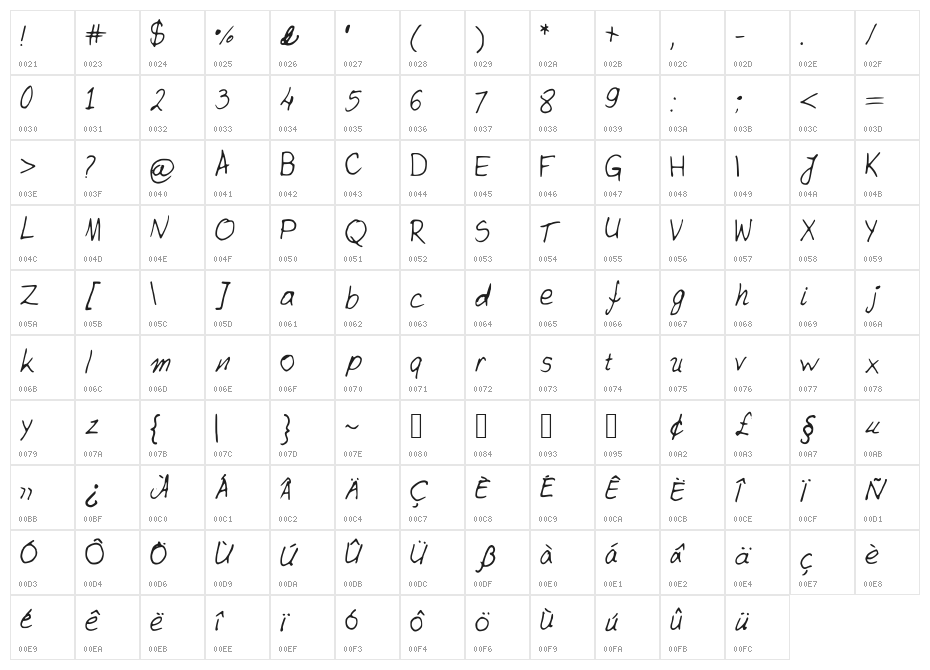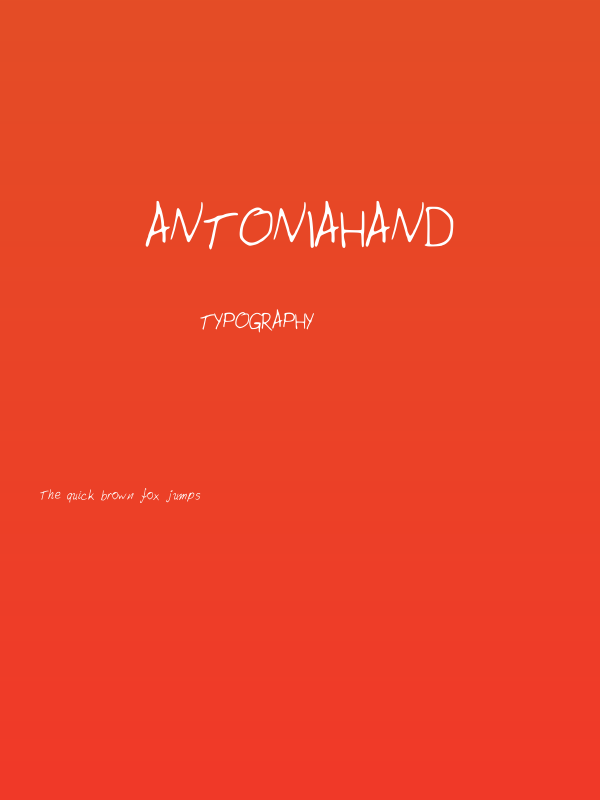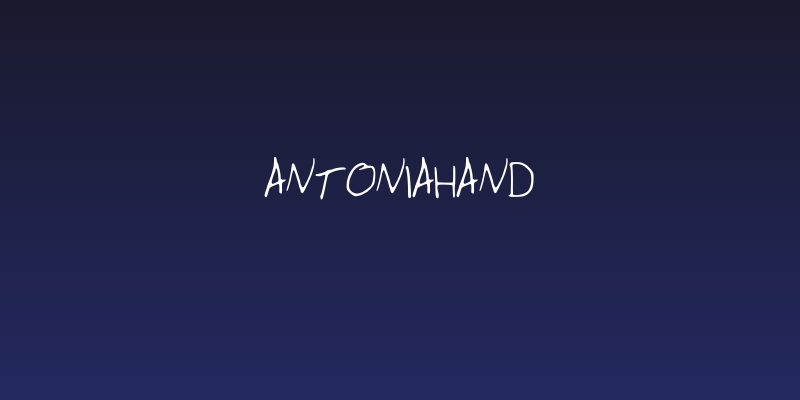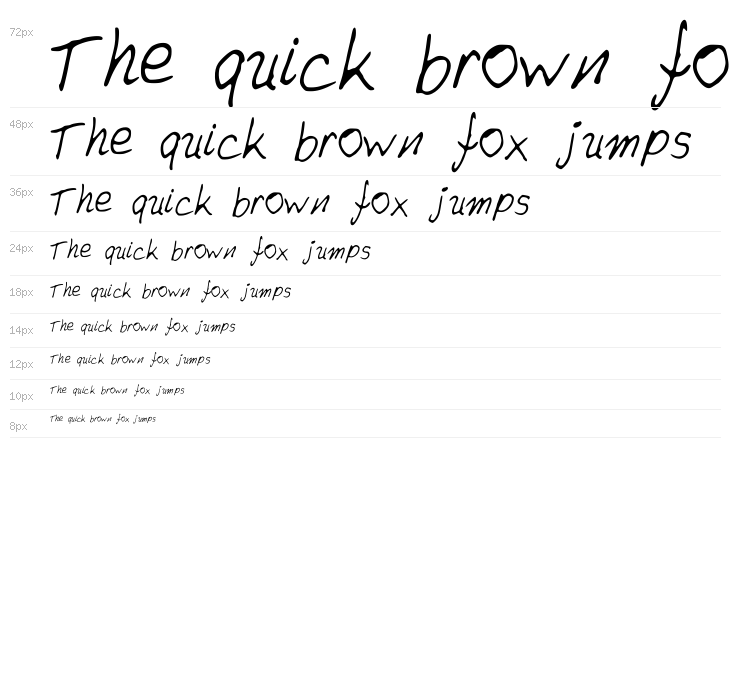
AntoniaHand Font
AntoniaHand Description
This font features a playful and casual handwritten style, characterized by its irregular strokes and varying line thickness. The letters have a natural, flowing appearance, giving it a personal and informal touch. Uppercase and lowercase letters are distinct, with some letters having unique flourishes and loops. The numbers and special characters maintain the same handwritten aesthetic, ensuring consistency across all glyphs. This font exudes a sense of creativity and spontaneity, making it ideal for projects that require a personal or artistic feel.
| Overall Style | Casual, Artistic |
| Use Case | Logos, Invitations, Artistic projects |
| Proposed Projects | Ideal for greeting cards, personal invitations, artistic projects, and informal branding. |